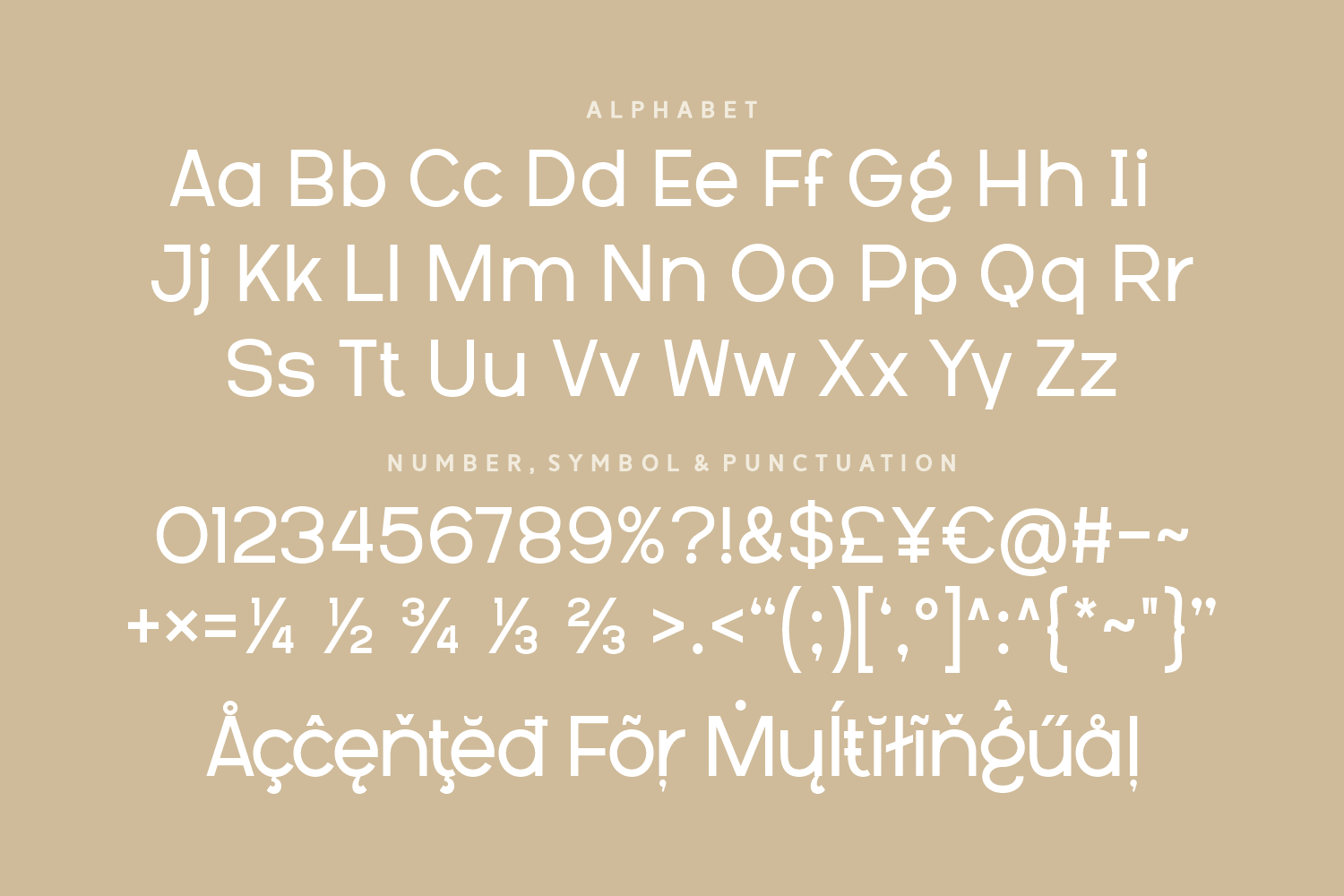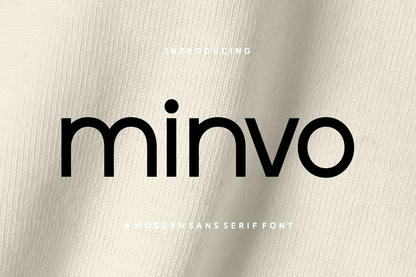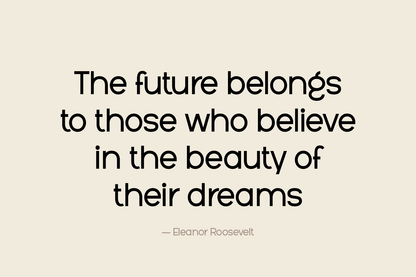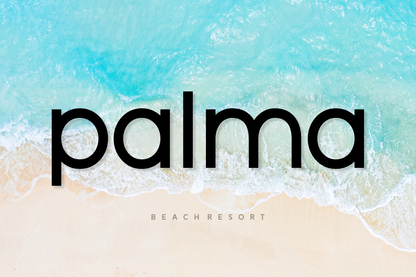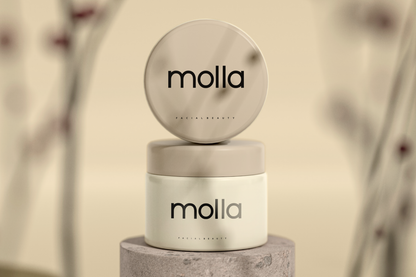
Minvo is a clean and modern sans-serif font with geometric roots and effortless readability. Ideal for branding, UI/UX, logos, and editorial layouts, its balanced structure brings professionalism and modernity to every design.